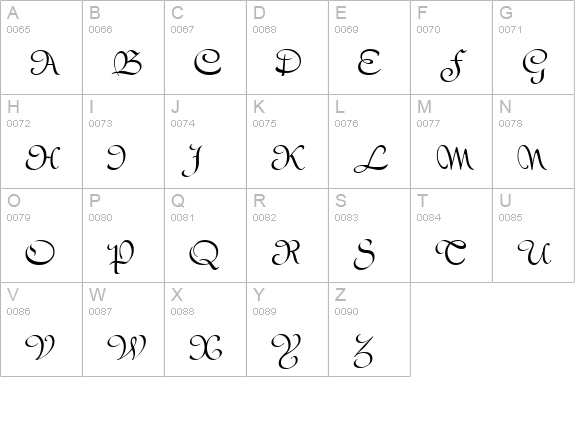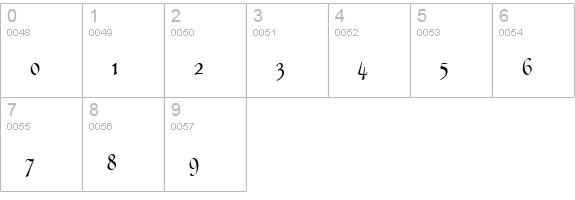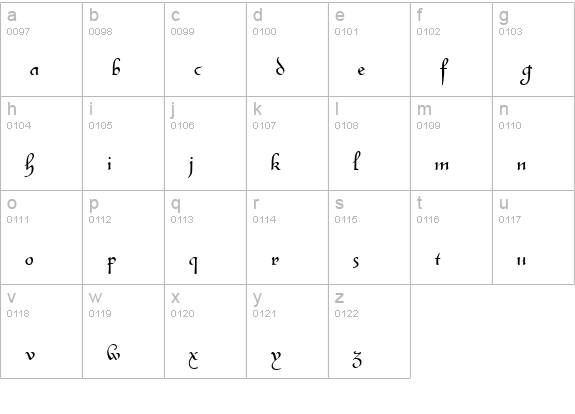
Olivia Font Details
Olivia is a sophisticated and elegant font that exudes charm and grace. With its sleek lines and timeless appeal, Olivia is perfect for adding a touch of class to any design project. This versatile font is ideal for various applications, from invitations and wedding stationery to branding and advertising materials. The best part? Olivia font is available for free download at FontsMarket.com, making it easily accessible to designers and creatives looking to elevate their work with a touch of sophistication. Don't miss out on the opportunity to add this stunning font to your collection and bring a touch of timeless elegance to your projects.